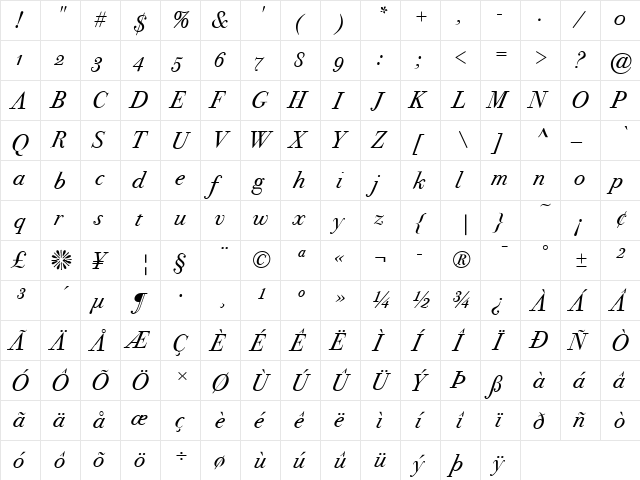
Bodoni Seventytwo ITC Book Italic
Design Context for Bodoni Seventytwo ITC Typeface
Bodoni Seventytwo ITC is a composed and adaptable typeface that performs quietly and consistently across a wide range of design contexts. The dynamic lean of this cut emphasises speed and emphasis in any layout.
Pro Tip: Use Bodoni Seventytwo ITC for emphasis, pull quotes, and subheadings where its slanted energy can add rhythm to the layout.